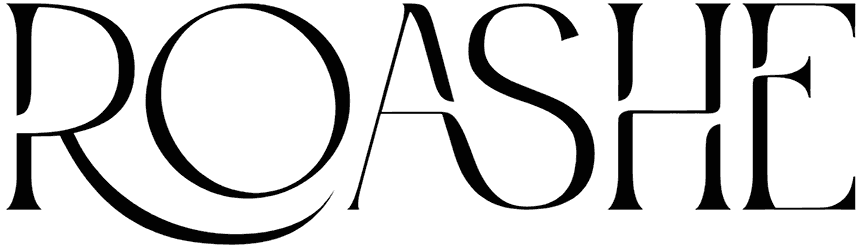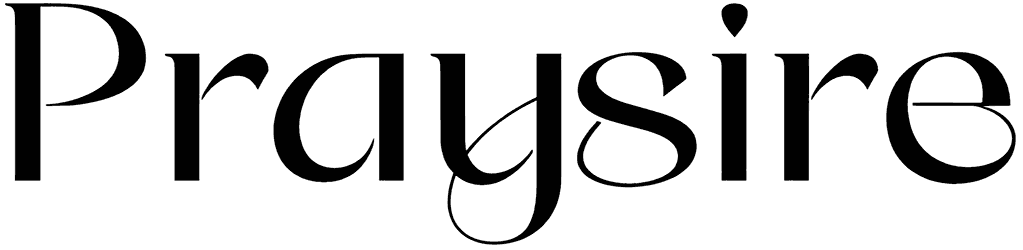
Brogi Font
A great way to ensure the modern flair of your lettering is to customize it with Brogi. As one of the best ligature fonts of Resource Boy, Brogi promises a fancy touch for your artwork.
Its calm attitude, teamed up with such a neat structure, suggests Brogi as a nice spa font for your websites and posters, minus the punctuation. Other than that, the design as luxury lets this font speak for your brands of sofas, crystal ware, and other similar products.
Brogi is a FREE and sophisticated font that exudes boldness and confidence. It’s perfect for logos and branding projects, and its subtle yet bold style will ensure your designs stand out. Download Brogi today and experience the boldness and sophistication for yourself.